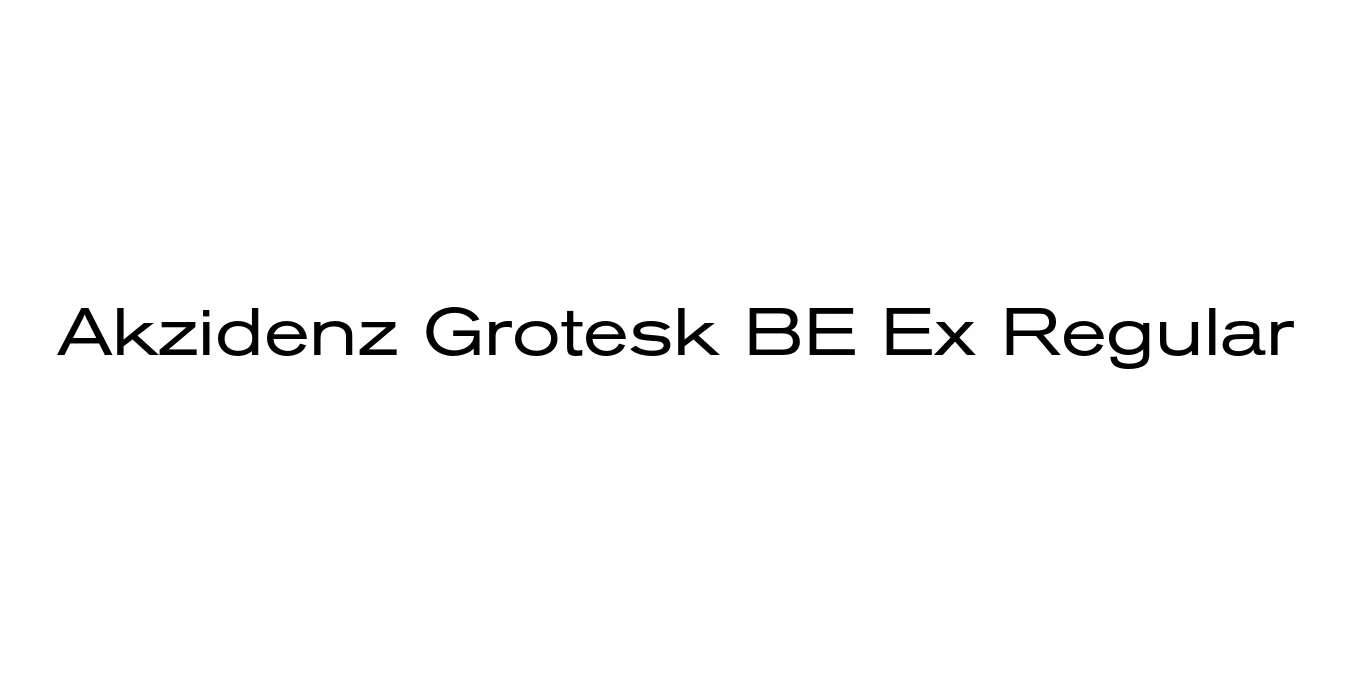
Akzidenz Grotesk BE Ex Regular
Designed by Berthold Type Foundry
Akzidenz-Grotesk is one of the most influential sans-serif typefaces in history, first released by the Berthold Type Foundry in 1896. Often cited as the precursor to modern neo-grotesque fonts like Helvetica and Univers, its objective and functional design became a cornerstone of the International Typographic Style (Swiss Style) during the mid-20th century, influencing decades of graphic design.
The "BE" (Berthold Edition) version represents the refined digital revival of this classic, maintaining the original's idiosyncratic proportions and distinct character. The Ex (Extended) variant provides a wider horizontal footprint, making it ideal for high-impact displays and architectural branding projects where clarity, authority, and a sense of permanence are required.
Akzidenz Grotesk BE Ex Regular Best Uses
Highly effective for logos and identity systems requiring a timeless, neutral aesthetic.
The extended width makes it perfect for bold, attention-grabbing titles in print and web layouts.
Exceptional legibility makes it a standard choice for signage and public information systems.